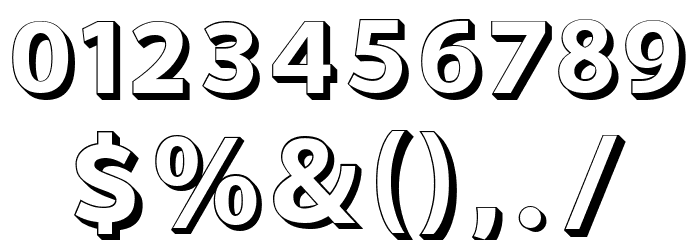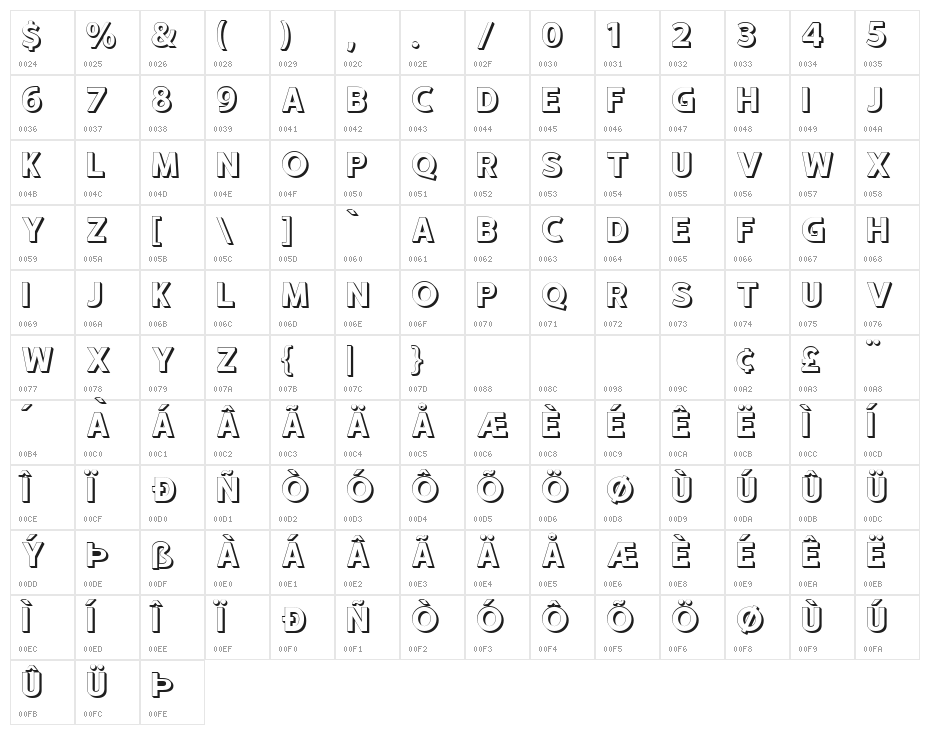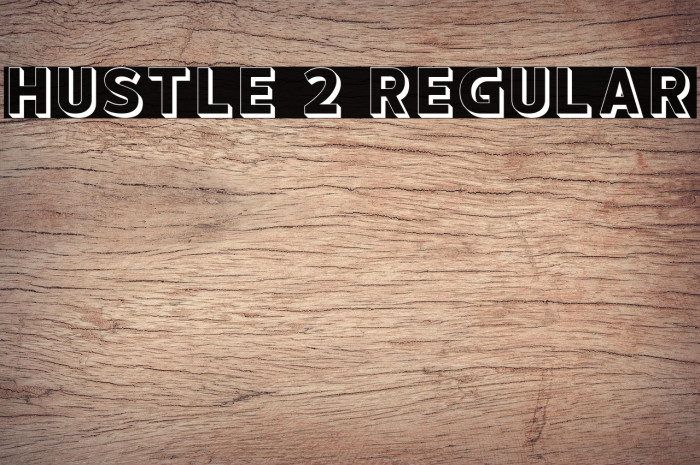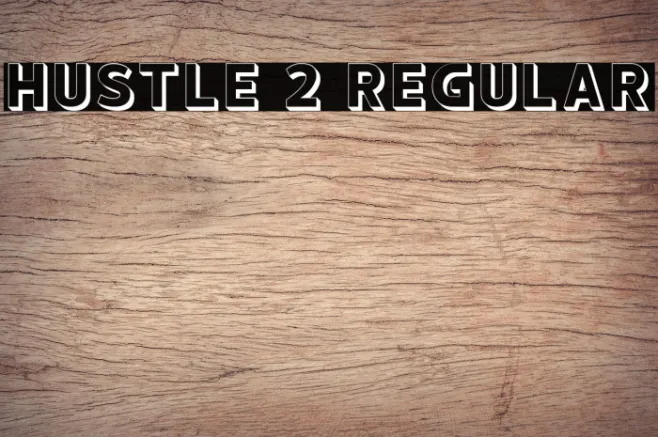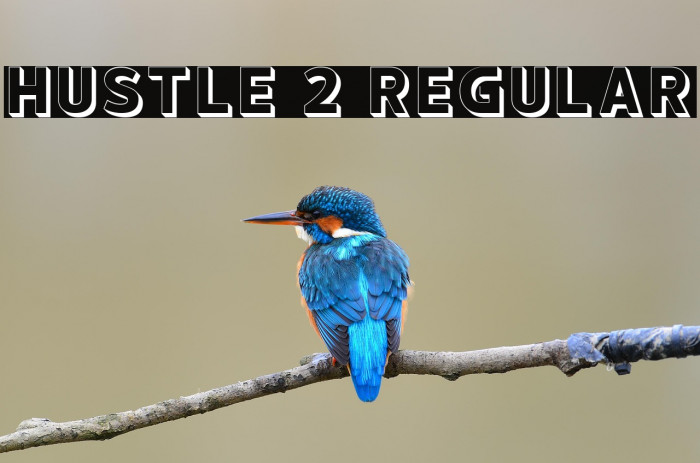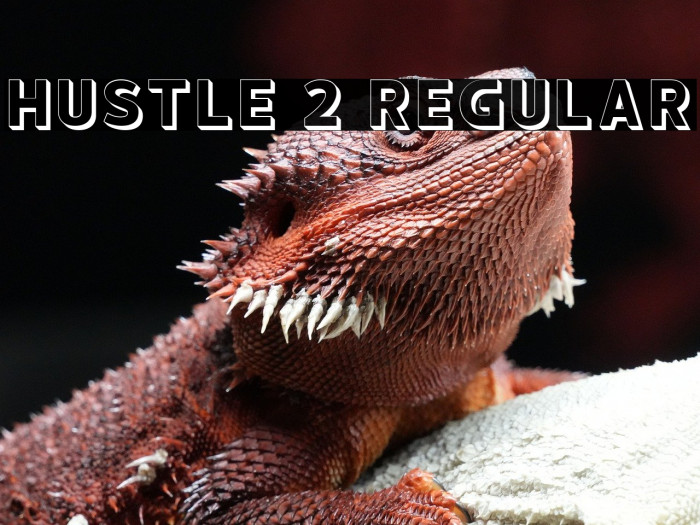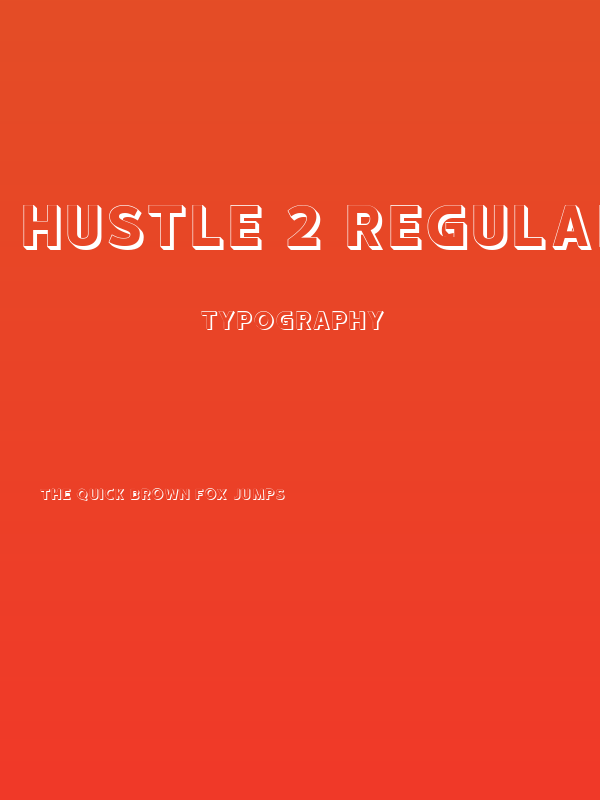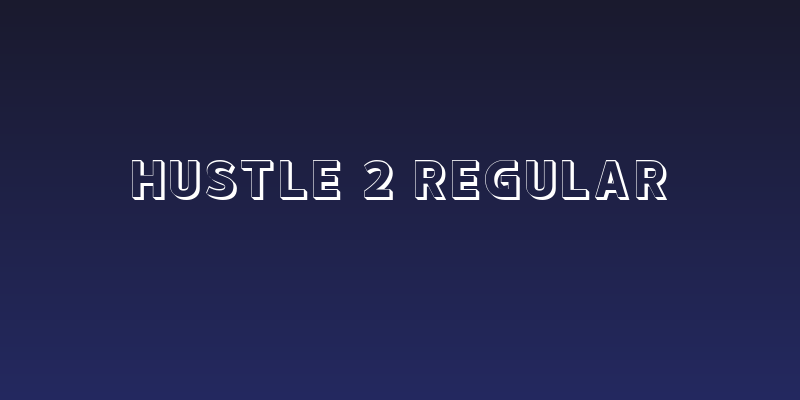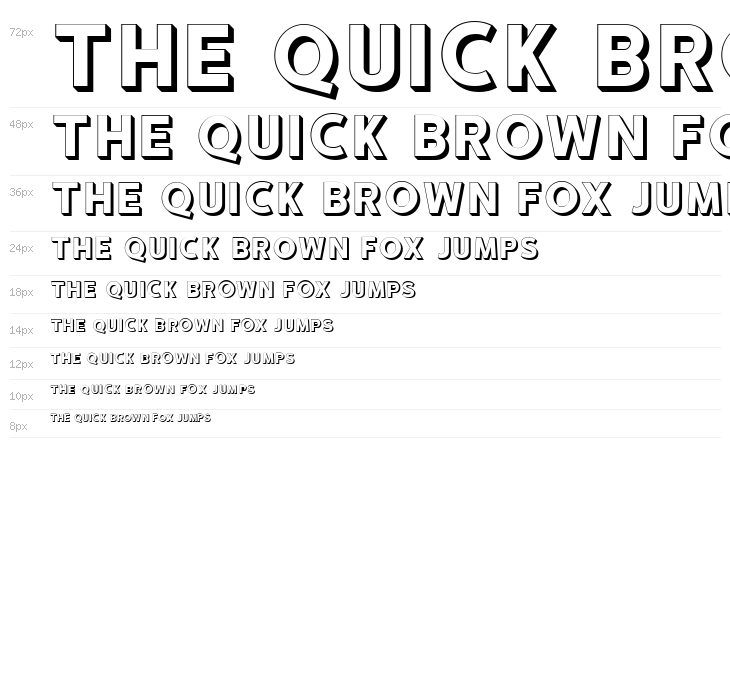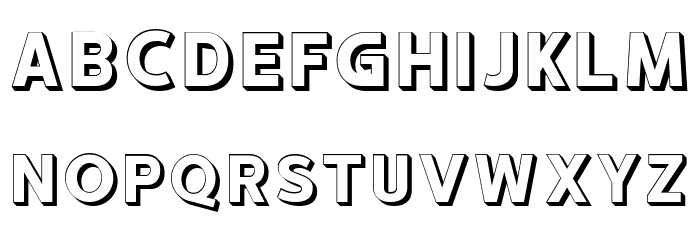
hustle 2 Regular Font
hustle 2 Regular Description
This font features a bold, three-dimensional style with a shadow effect that gives it a striking and dynamic appearance. The characters are uppercase and numerals, each with a strong presence and clear readability. The design incorporates a modern twist with its shadowed outline, making it stand out in any design. The font's geometric structure and clean lines contribute to its contemporary feel, while the shadow adds depth and interest. This combination of elements makes it suitable for eye-catching headlines and titles.
| Proposed Projects | Ideal for posters, logos, branding materials, and any project requiring a bold and modern aesthetic. |